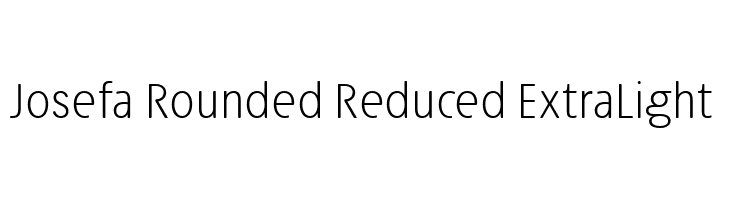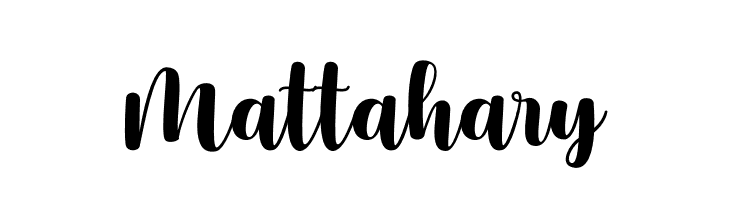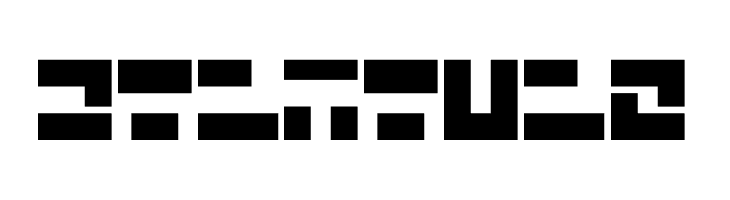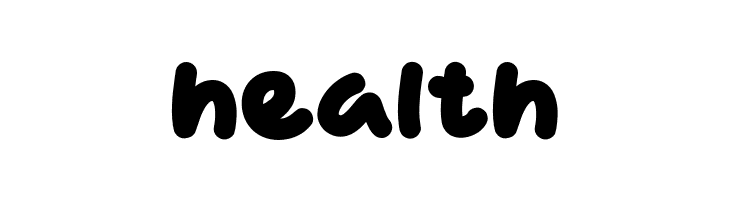
A bold, geometric, and futuristic decorative font.
A modern, geometric font with sharp, angular lines and a futuristic style.
A playful, handwritten-style font with a whimsical and casual feel.
A bold, italic font with a modern, industrial feel and strong presence.
A clean, modern font with uniform stroke width and excellent readability.
Bold, geometric font with an expanded width and semi-italic slant.
A fluid, elegant script font with a handwritten style.
A playful and whimsical script font with smooth, flowing curves.
A digital-inspired font with segmented, geometric characters.
A decorative and modern font with ornate uppercase and clean lowercase letters.